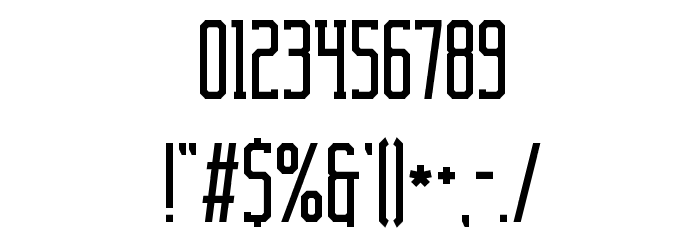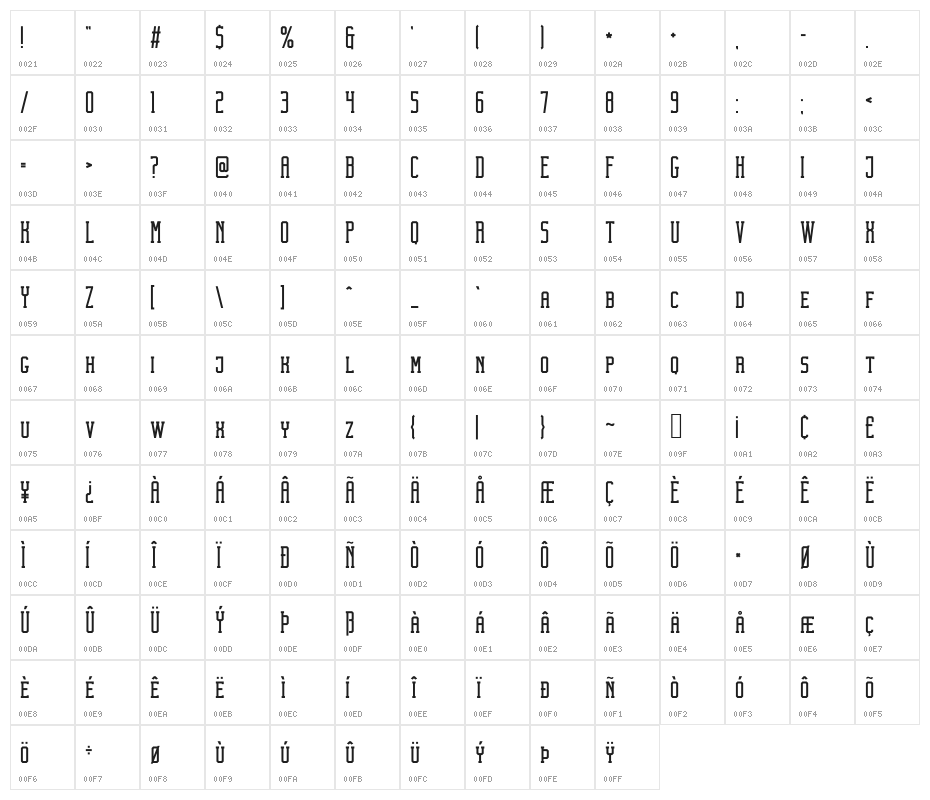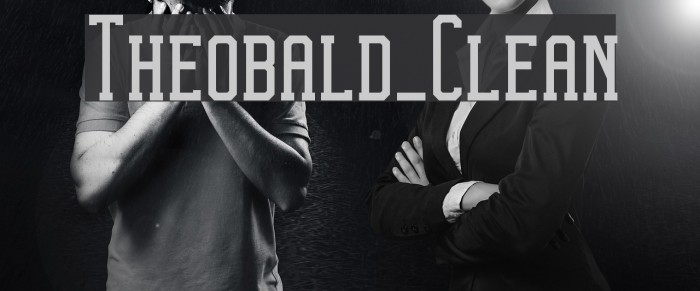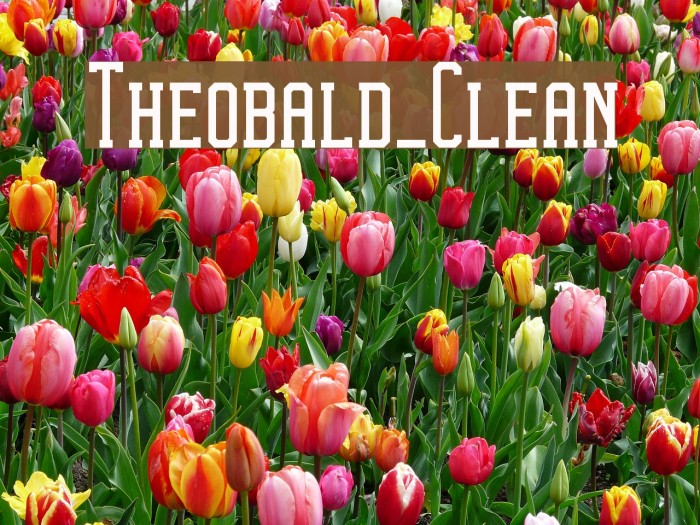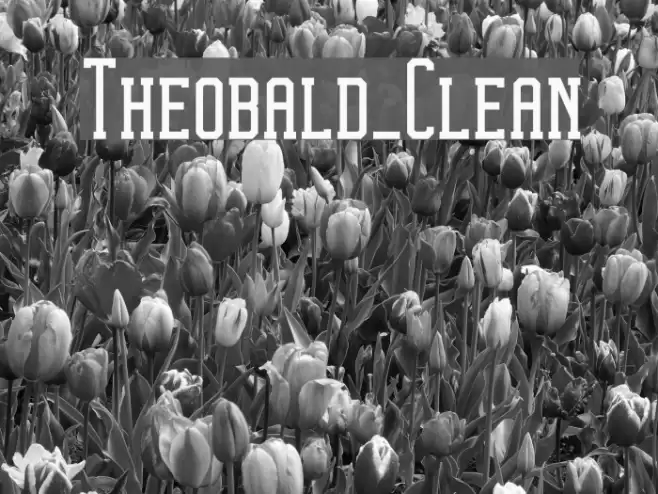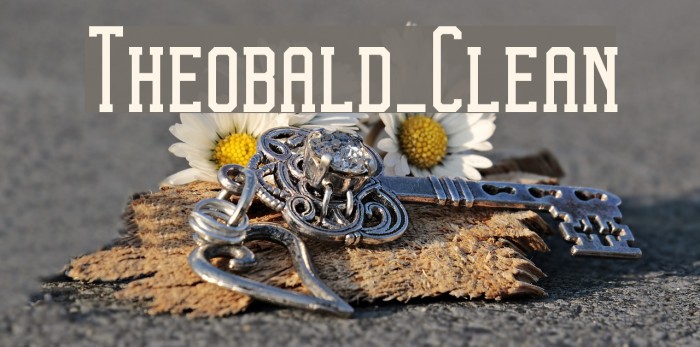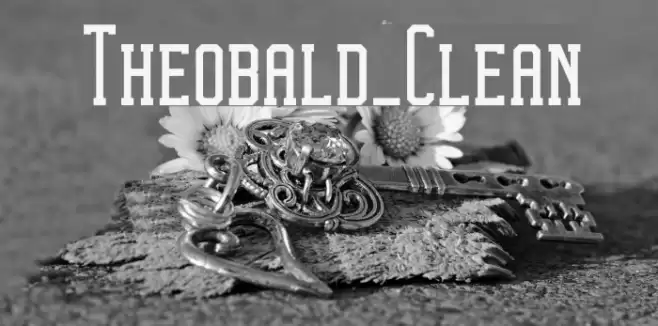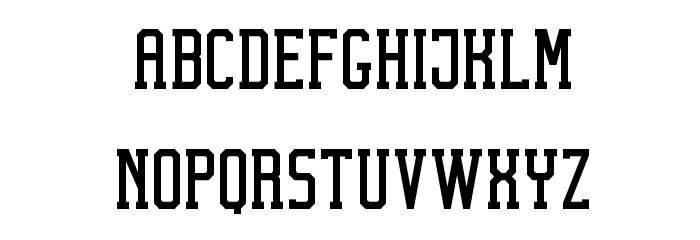
Theobald_Clean Font
Theobald_Clean Description
This font features a bold, geometric design with a strong presence. The characters are tall and narrow, giving a condensed appearance that emphasizes verticality. The strokes are consistent in width, contributing to a uniform look across all characters. The font includes both uppercase and lowercase letters, numerals, and a variety of special characters, making it versatile for different uses. Its clean lines and structured form lend it a modern and professional feel, suitable for impactful headlines and branding projects.
| Proposed Projects | Ideal for branding, headlines, posters, and any project requiring a strong visual impact. |